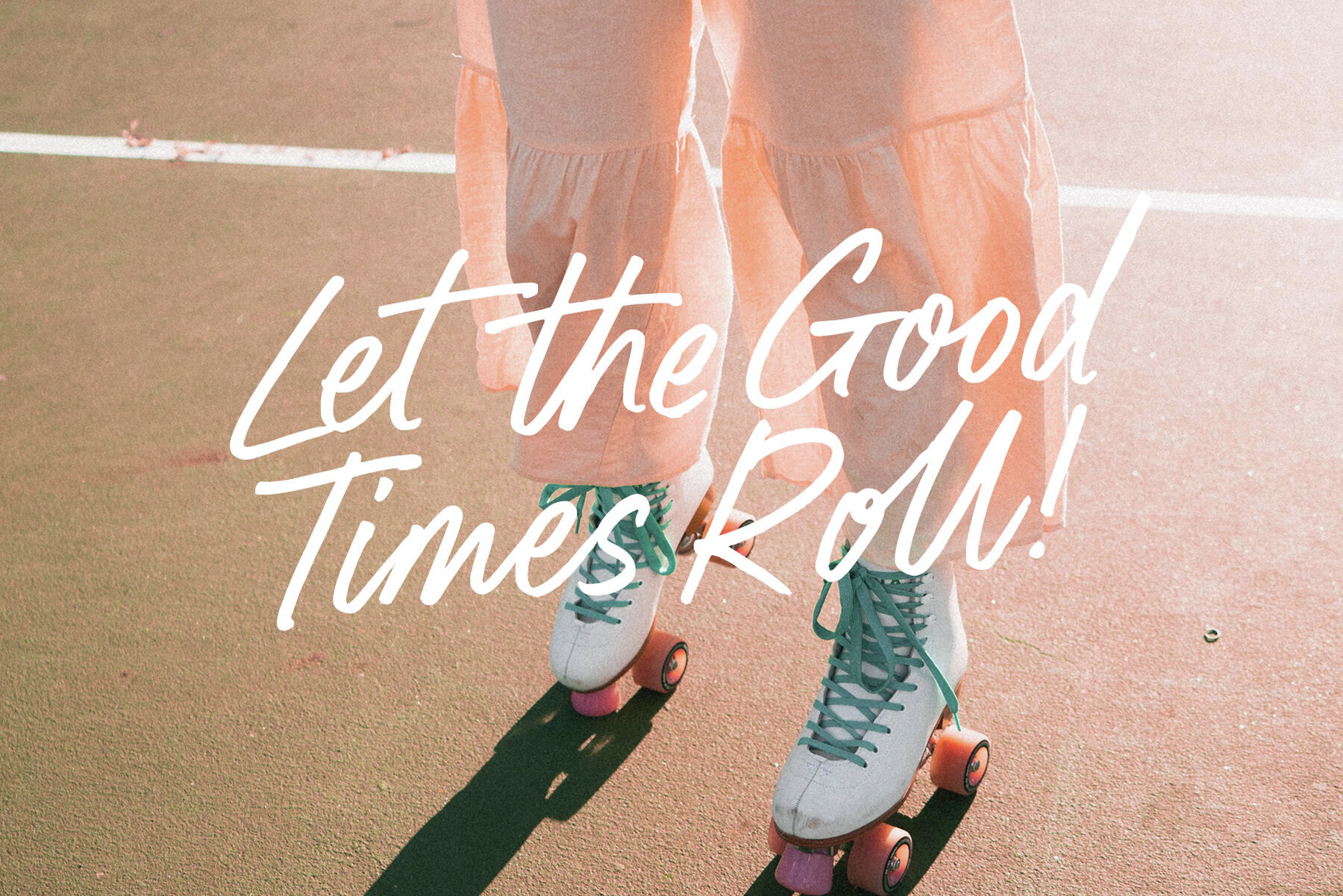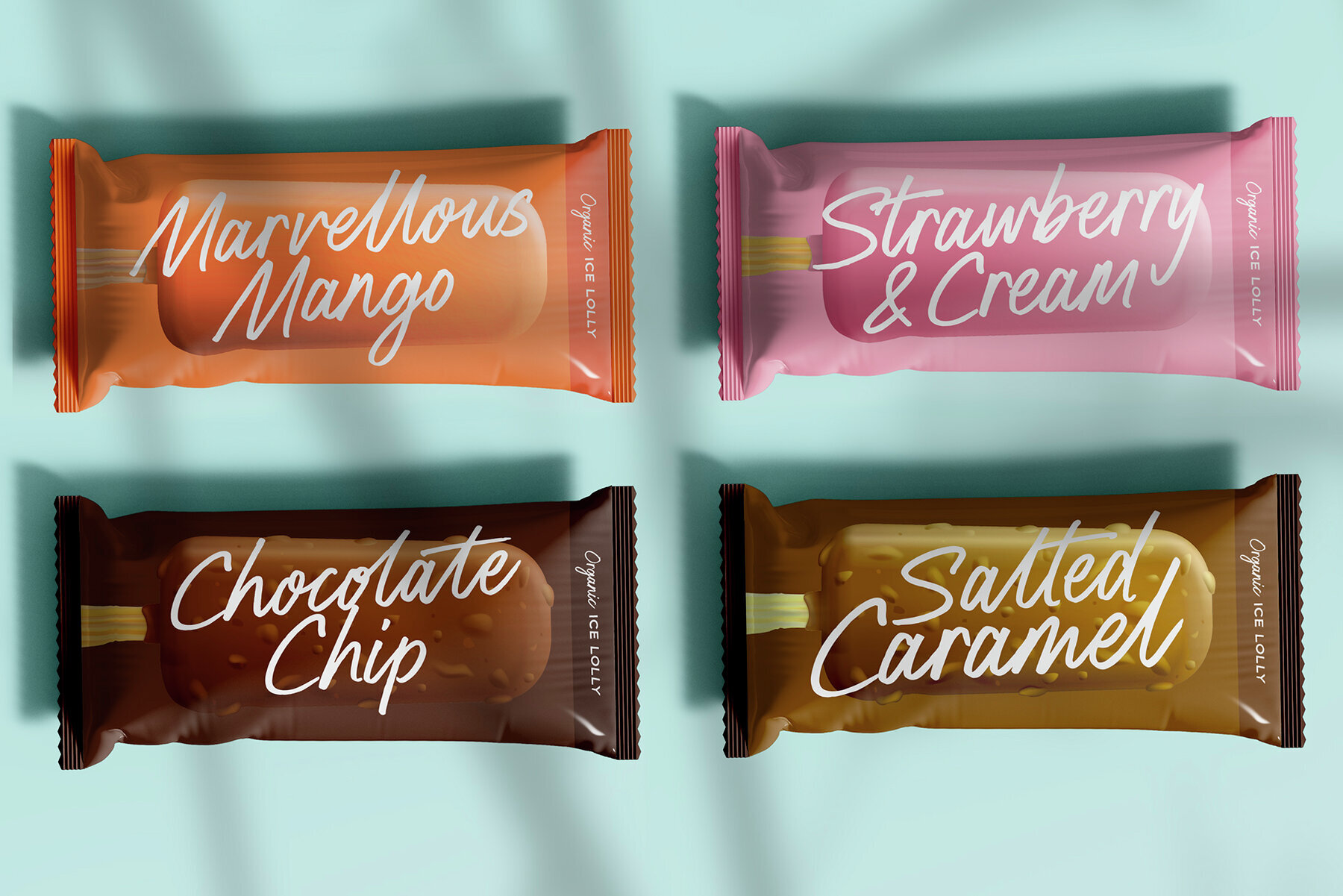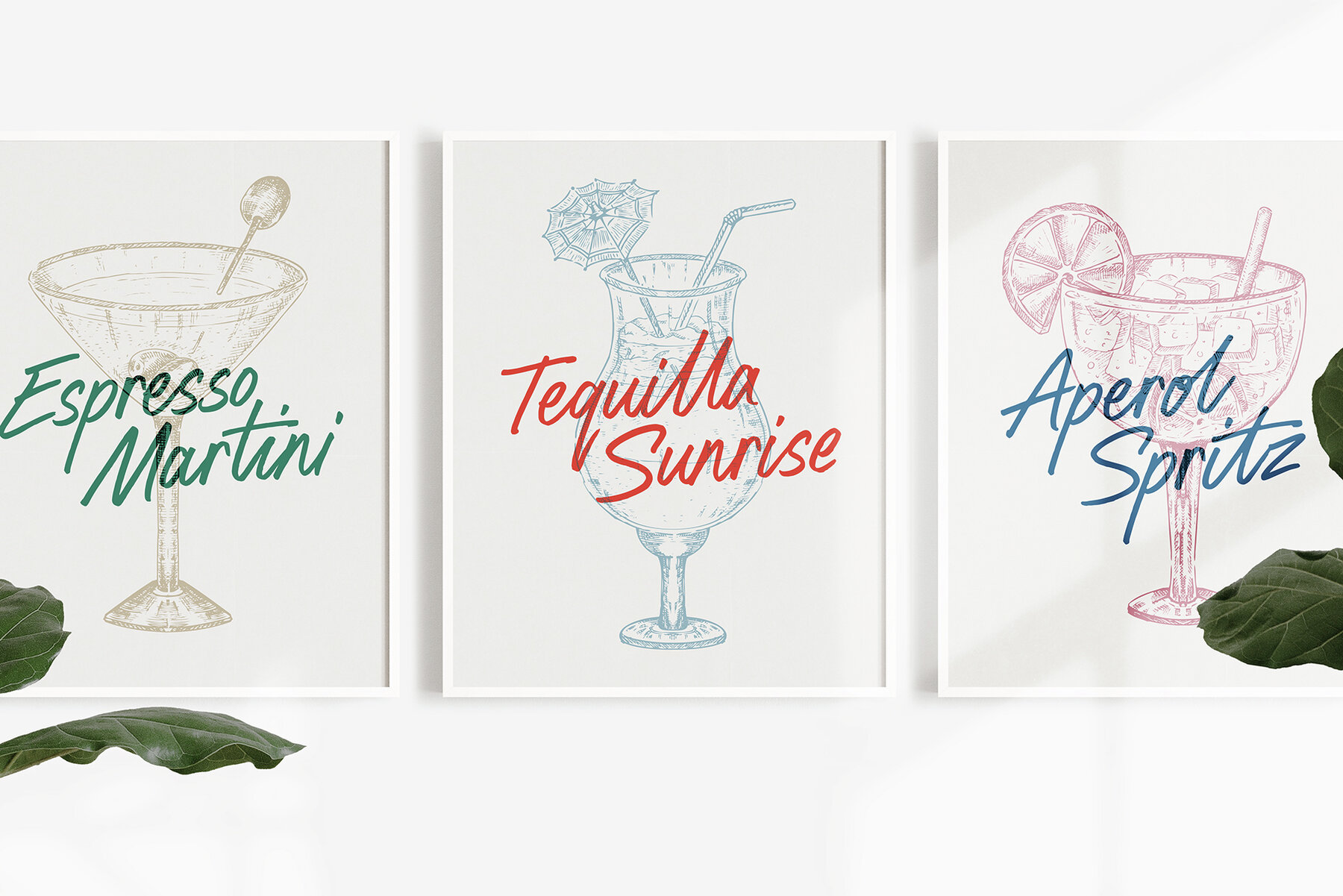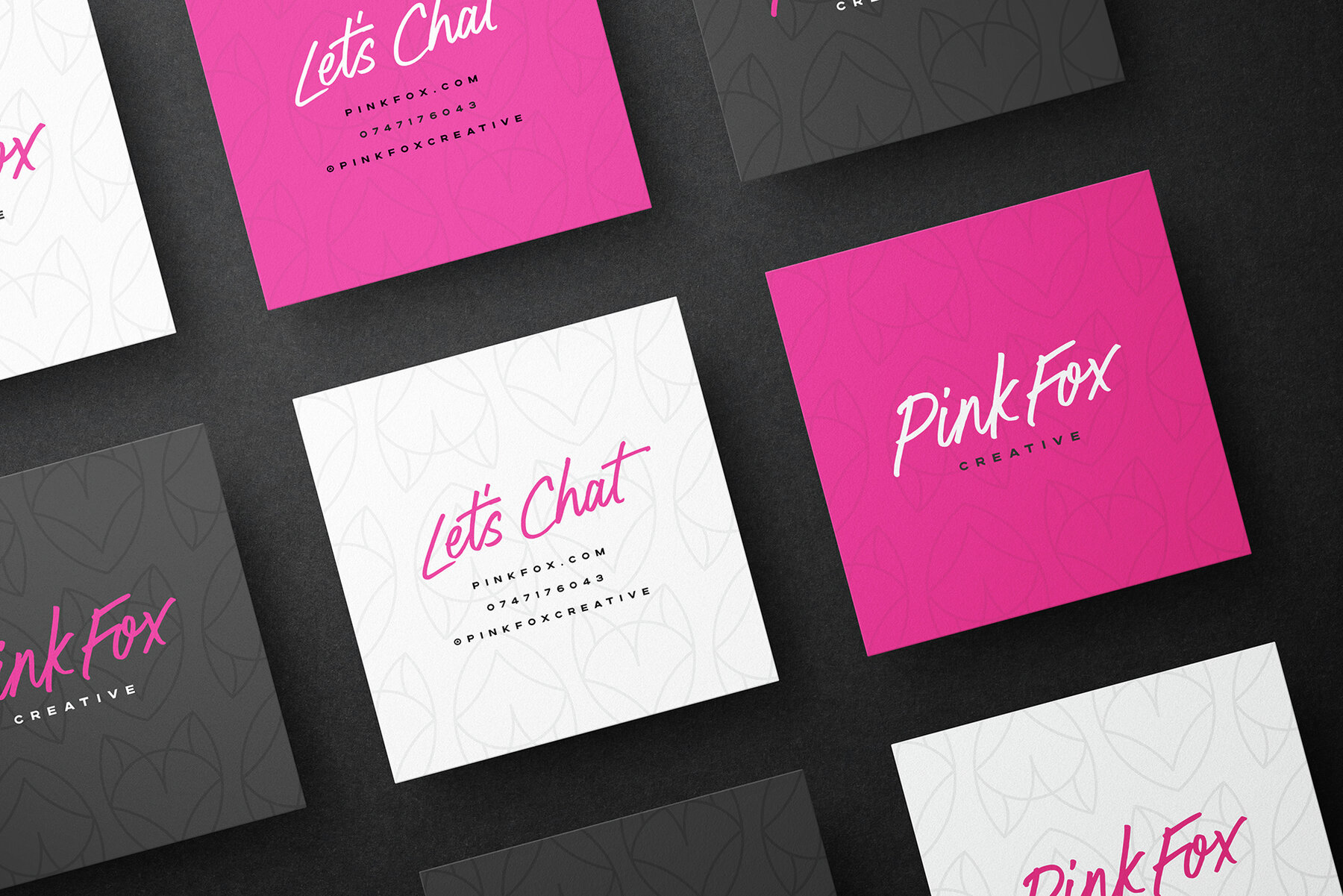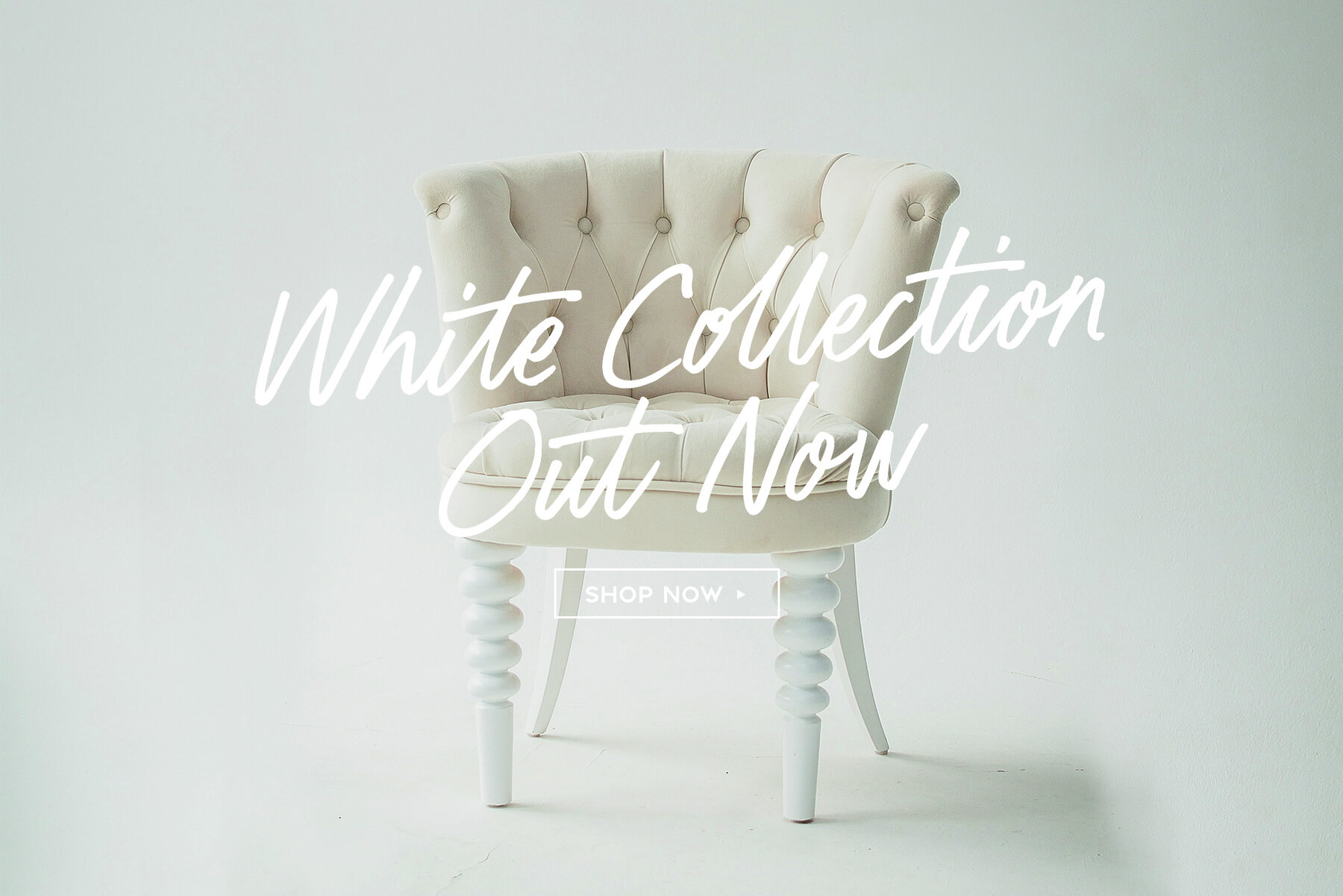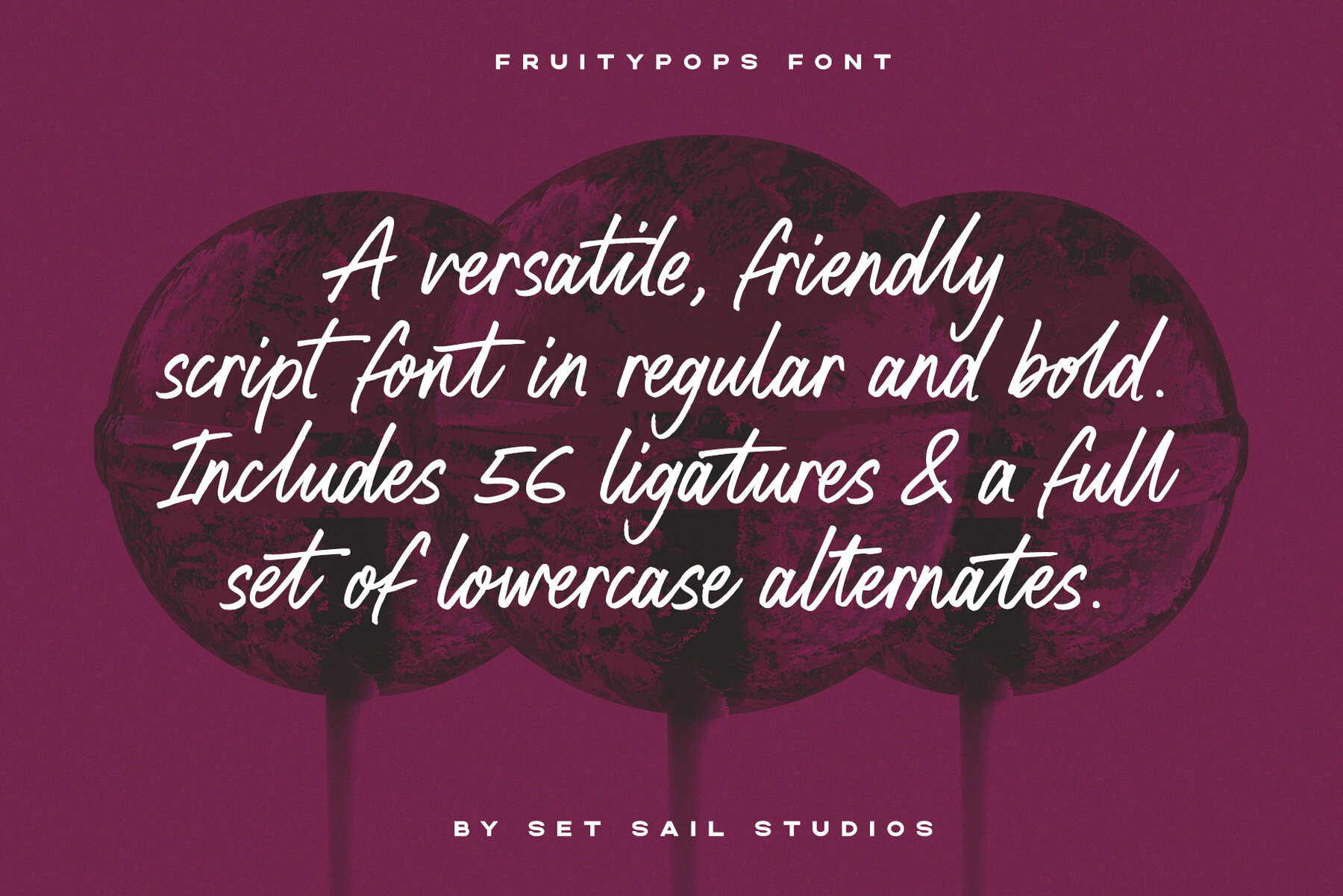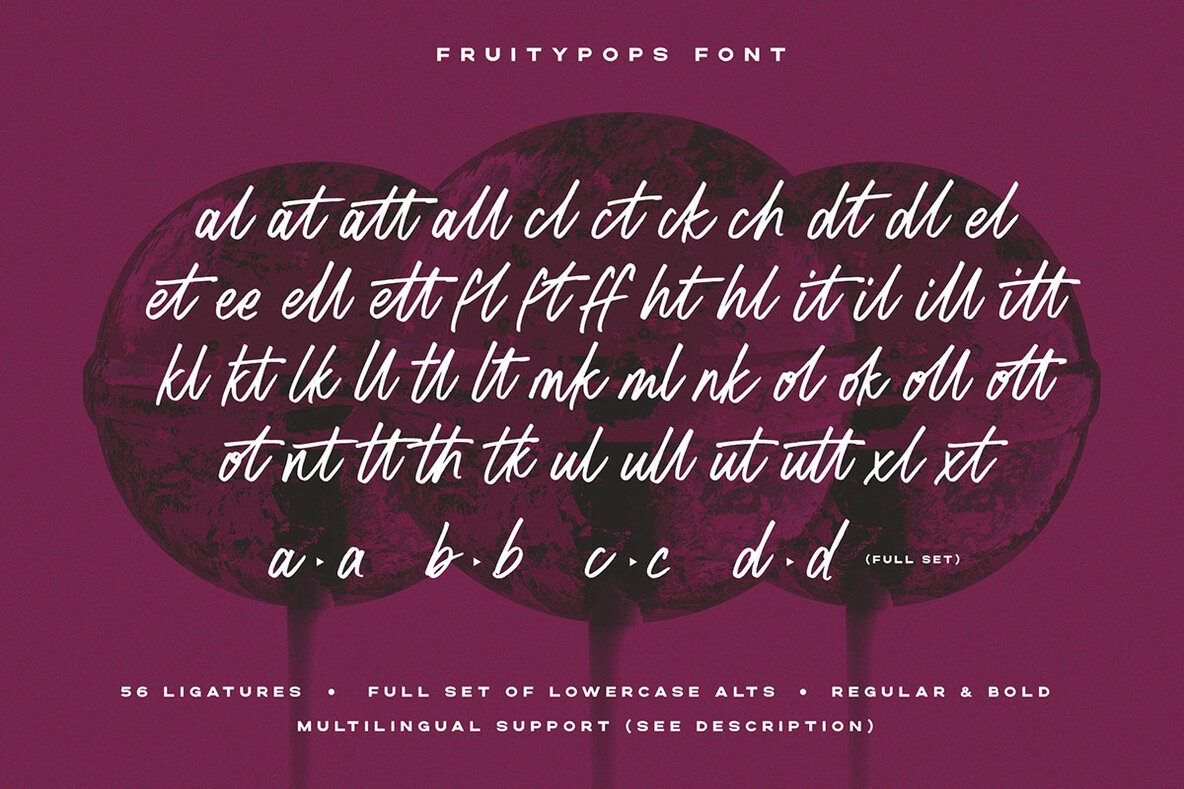
Fruitypops Font
Embrace creativity with Fruitypops, a versatile script font crafted by hand with a real marker pen on paper. This unique typeface combines bold appeal with spacious loops, offering distinguished letterforms and expansive counter spaces. Engineered for diverse design needs, it features 56 ligatures and a complete set of unconnected lowercase alternates alongside a bold variant, providing a personal touch for any project. Comprehensive Language Support – Covers languages including English, French, Italian, Spanish, among others, ensuring global usability.Fruitypops: A Dynamic Script with Playful Charm